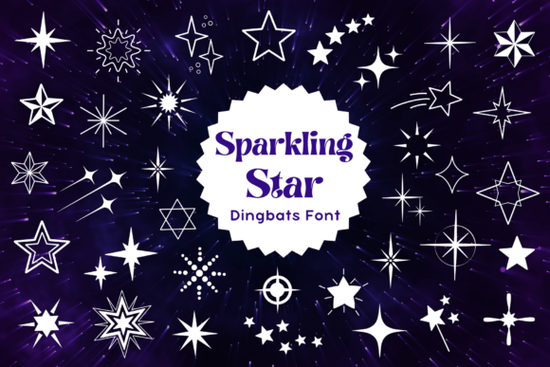
If you’ve ever needed a quick way to add playful, eye-catching star elements to your designs without hunting through icon libraries or illustration software, the Sparkling Star Font might be exactly what you’re looking for. This dingbat font packs dozens of star-themed glyphs into a single, easy-to-install file making it ideal for crafters, small business owners, and print-on-demand creators who want consistent, scalable graphics with minimal fuss.
Unlike typical fonts that display letters and numbers, dingbat fonts like this one use each key on your keyboard to trigger a unique symbol. With Sparkling Star, pressing “A” might give you a solid five-point star, while “B” could deliver a whimsical shooting star or a constellation-style cluster. The variety means you can mix and match styles within the same project without switching assets or losing visual harmony.
What kinds of projects work best with Sparkling Star?
This font shines (pun intended) in contexts where stars are more than just decoration they’re part of the theme. Think birthday invitations with a celestial twist, classroom reward charts, holiday greeting cards for New Year’s Eve or Fourth of July, or even branding for a kids’ boutique or astronomy camp. Because every glyph is vector-based, it scales cleanly from tiny stickers to large banners without pixelation.
How is this different from downloading individual star icons?
Convenience is the biggest advantage. Instead of managing dozens of SVG or PNG files, you get everything in one lightweight font file. That means:
- Faster workflow: No need to import or align separate graphics.
- Better consistency: All stars share the same line weight, style, and proportions.
- Easier customization: Change color, size, or orientation instantly using your design software’s text tools.
Tips for getting the most out of your star dingbat font
Not all glyphs are mapped to obvious keys, so start by opening the font in a character map tool (like Windows Character Map or macOS Font Book) to see what’s included. Many design programs also have built-in glyph panels use them to browse symbols visually instead of guessing keystrokes.
Try layering multiple star styles: place an outlined star behind a solid one in a contrasting color for a halo effect. Or scatter tiny stars as background texture by typing a string of characters and reducing the font size. Because they’re vector, you won’t lose quality even at very small scales.
Finally, remember that dingbat fonts like this aren’t meant for body text they’re graphic elements disguised as type. Use them intentionally, and they’ll add charm without clutter.